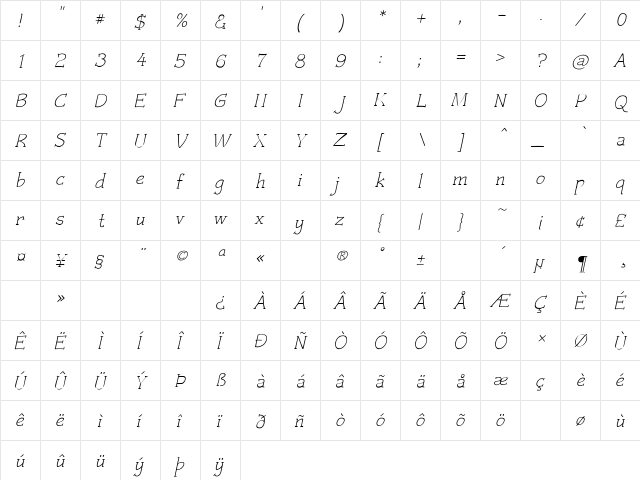
Czaristite Medium Italic
Design Context for Czaristite Typeface
Czaristite is a composed and adaptable typeface that performs quietly and consistently across a wide range of design contexts. The dynamic lean of this cut emphasises speed and emphasis in any layout.
Pro Tip: Try Czaristite for annotation and caption copy alongside an upright companion — the contrast in angle creates a dynamic but ordered typographic system.